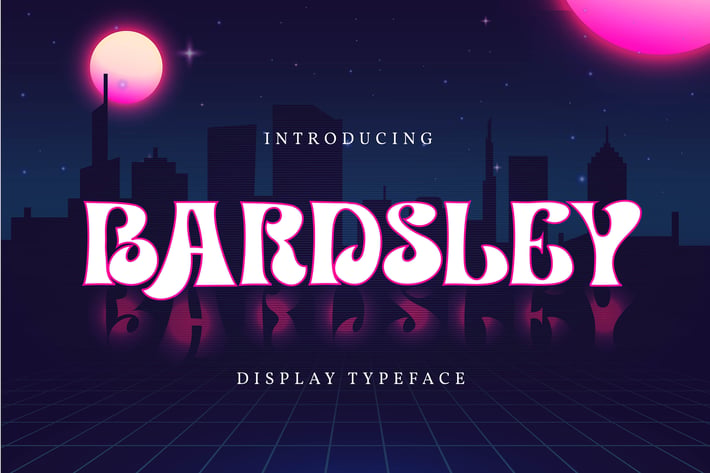
Bardsley | Display Typeface
Bardsley | Display Typeface with a calligraphy style, So beautiful on invitation like greeting cards, branding materials, business cards, quotes, posters, and more!